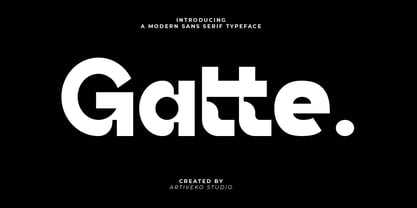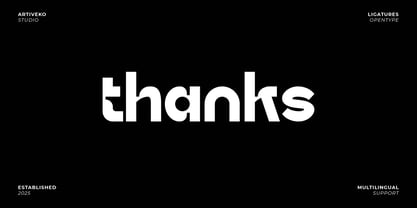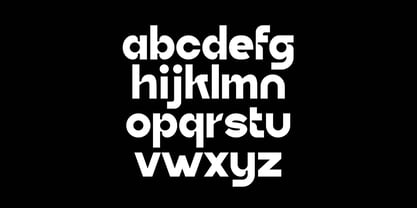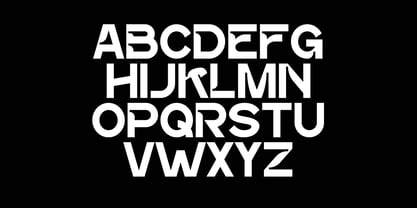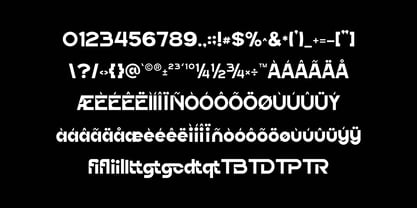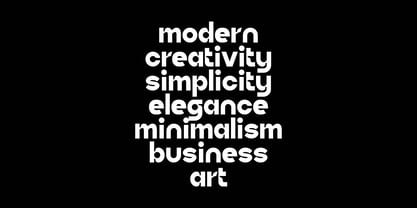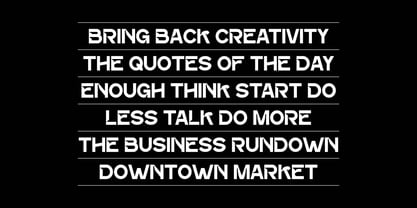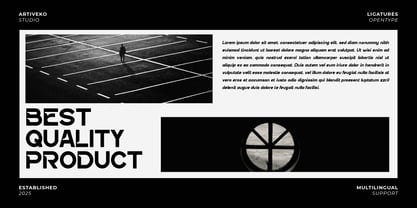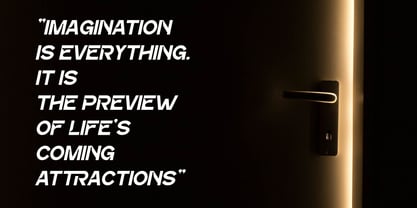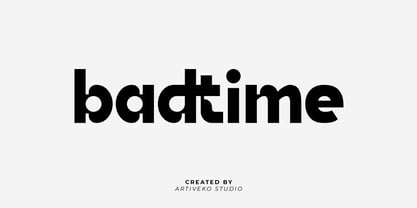
Gatte
by Artiveko
The Gatte Font Family was designed by Iwan Alwan and published by Artiveko. Gatte contains 2 styles and family package options. More about this family
Gatte is a refined sans serif font that blends modern simplicity with timeless elegance. Featuring clean geometry, smooth curves, and well-balanced proportions, Gatte is ideal for branding, luxury packaging, editorial layouts, website headers, and social media graphics that require a sophisticated yet versatile style.
Its minimalist design ensures clarity and high readability, while subtle details give it a distinctive personality. Gatte works beautifully for fashion brands, creative studios, lifestyle products, and professional presentations — delivering a polished, premium feel across both print and digital media.
The font includes uppercase and lowercase letters, numerals, punctuation, multilingual support, and stylistic alternates for enhanced creative flexibility.
Bring elegance and confidence to your projects with Gatte — the modern sans serif font that embodies style, precision, and contemporary sophistication.
Designers: Iwan Alwan
Foundry: Artiveko